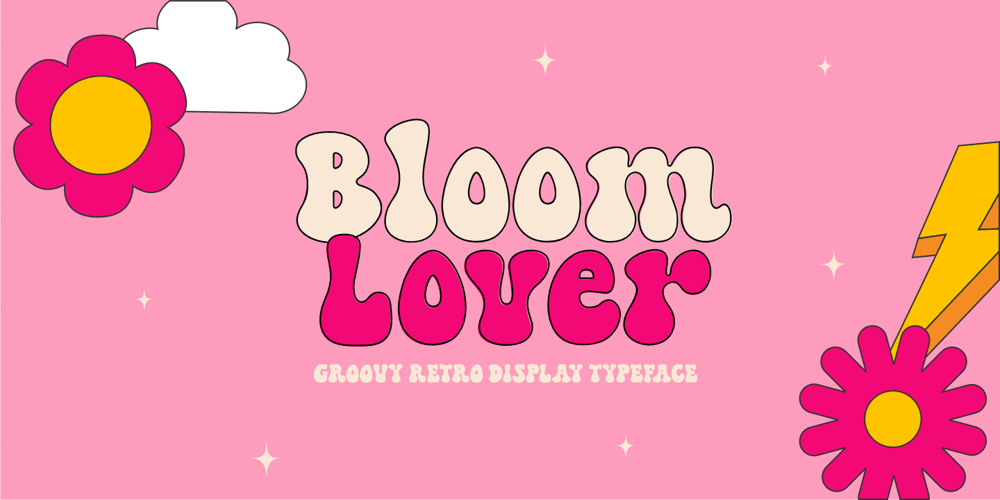
Bloom Lover Font Family was designed by Risca Anitawati and published by Reyrey Blue Std. Bloom Lover contains 2 styles and family package options. Introducing Bloom Lover Typeface.Bloom Lover is a modern, bold and playful display font with retro and groovy style concept. This font comes in 2 styles, Regular and Outline version.This font is perfect for all of your retro designs, procreate designs, social media, shirts, stickers, branding, logos, prints, Cricut projects, svg designs and and other design what you want.Features :· All Uppercase and Lowercase· Number & Symbol· Supported Languages· Alternates and Ligatures· PUA EncodedHope you enjoy with our font!